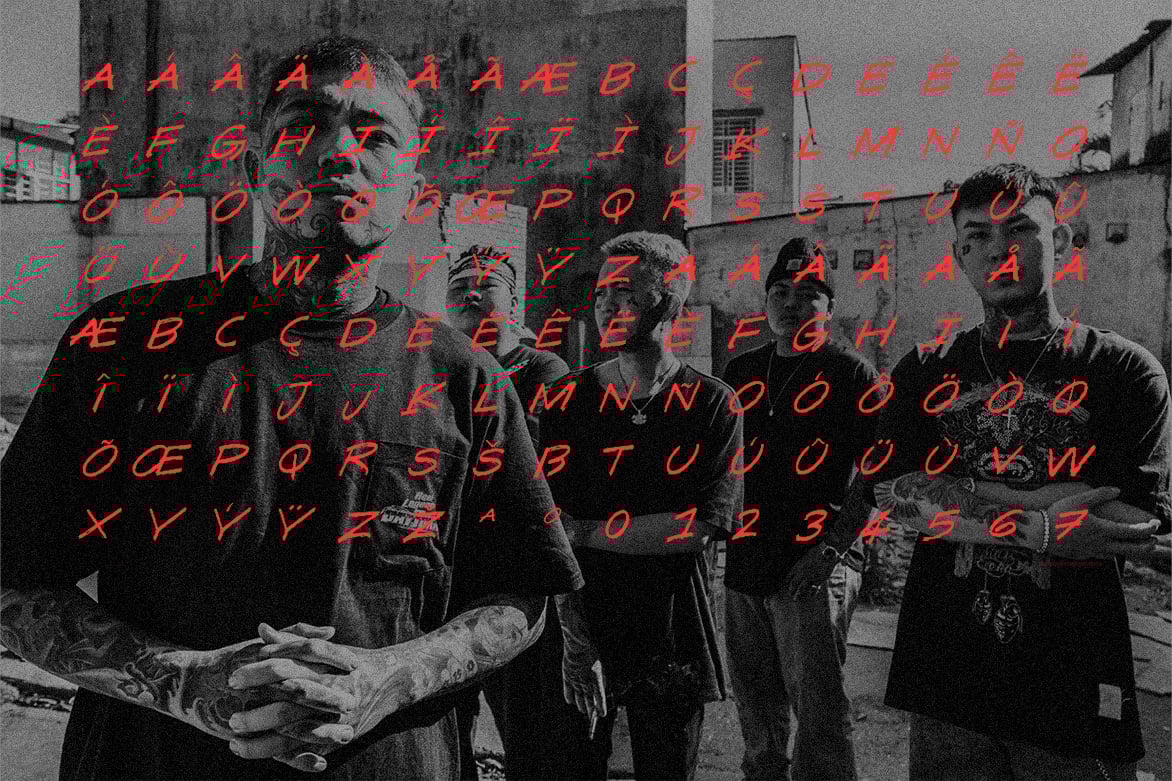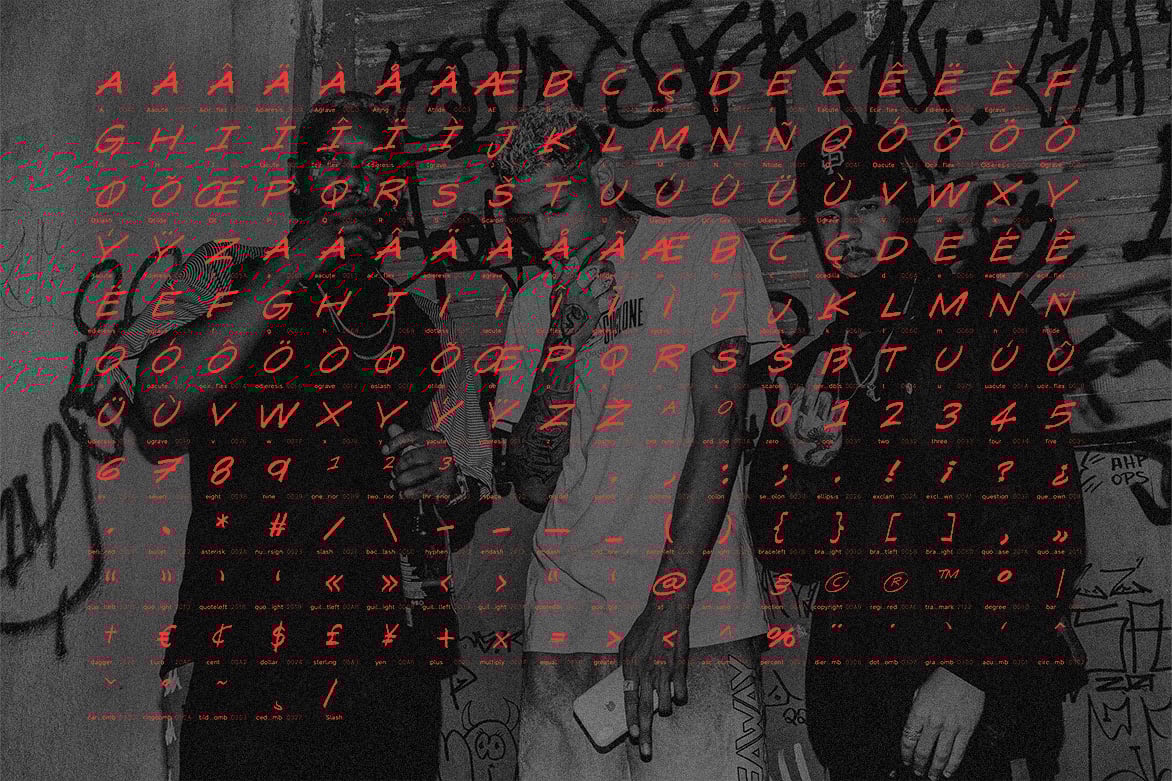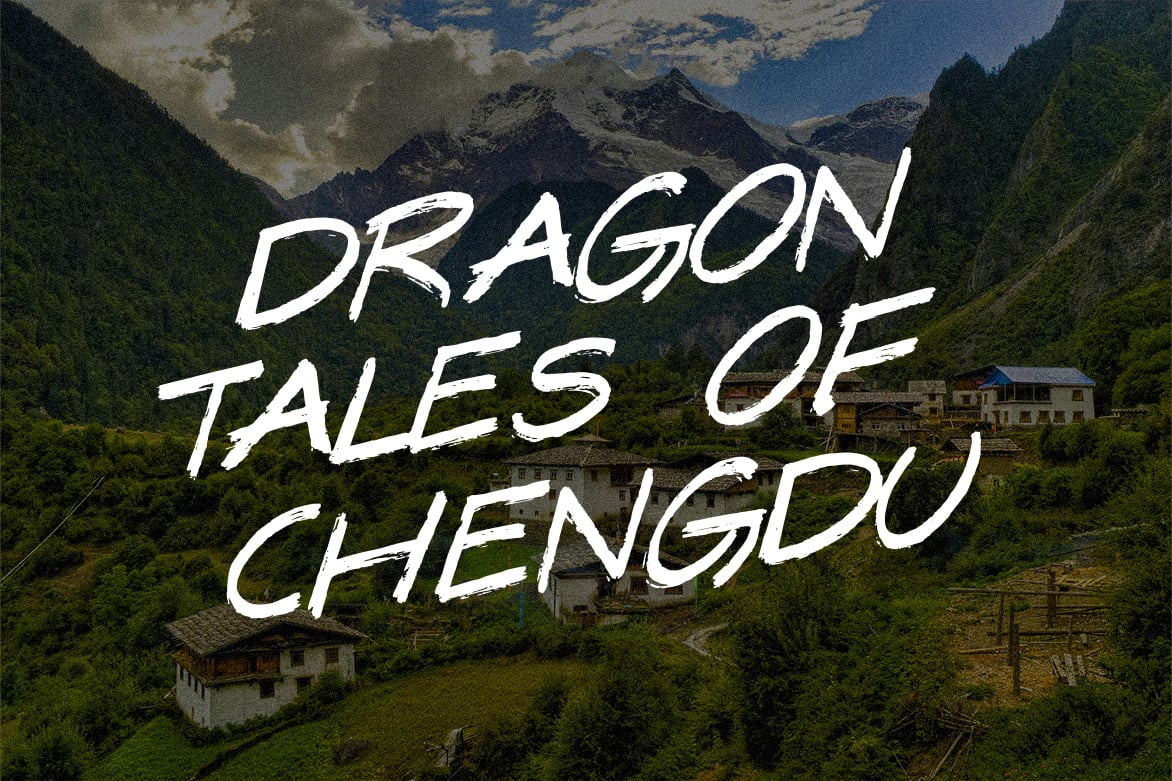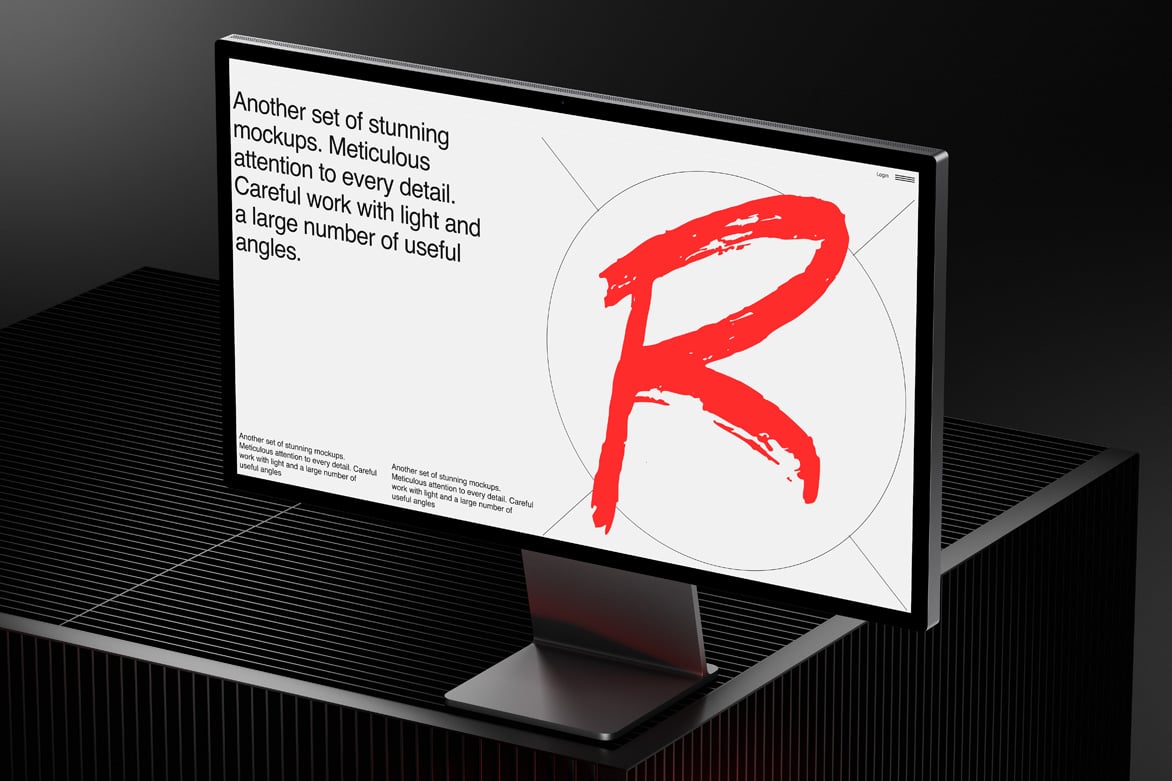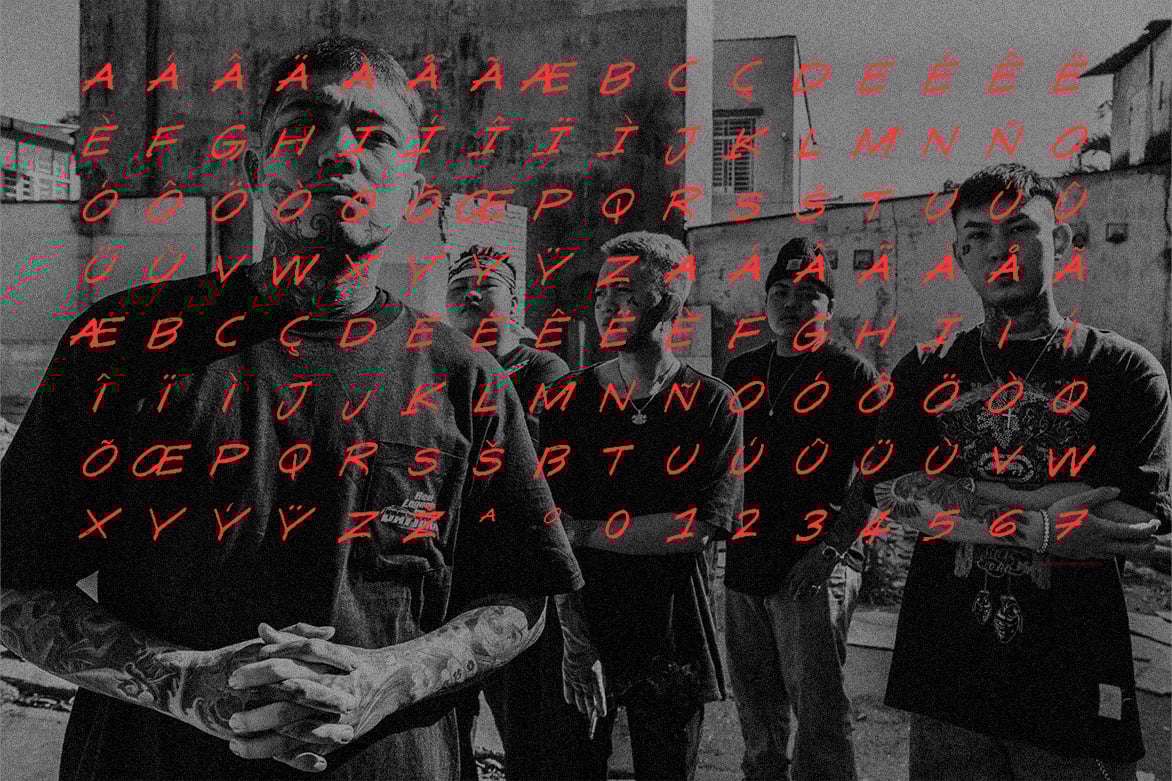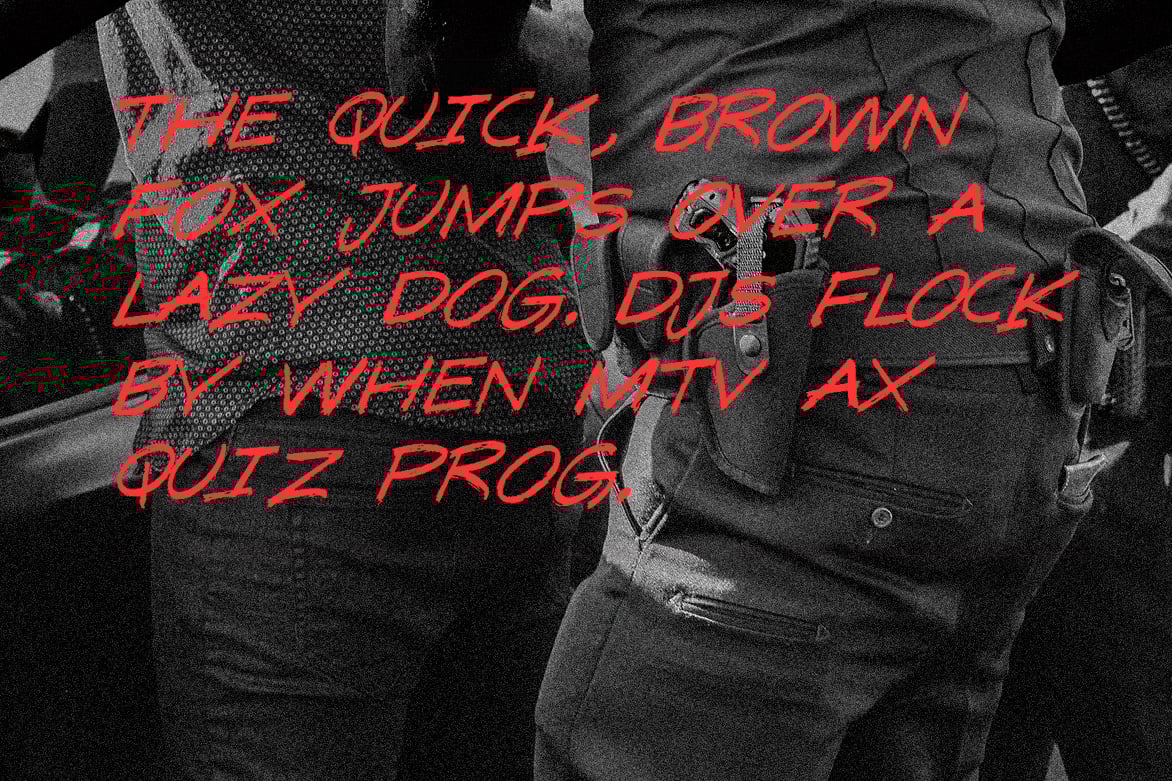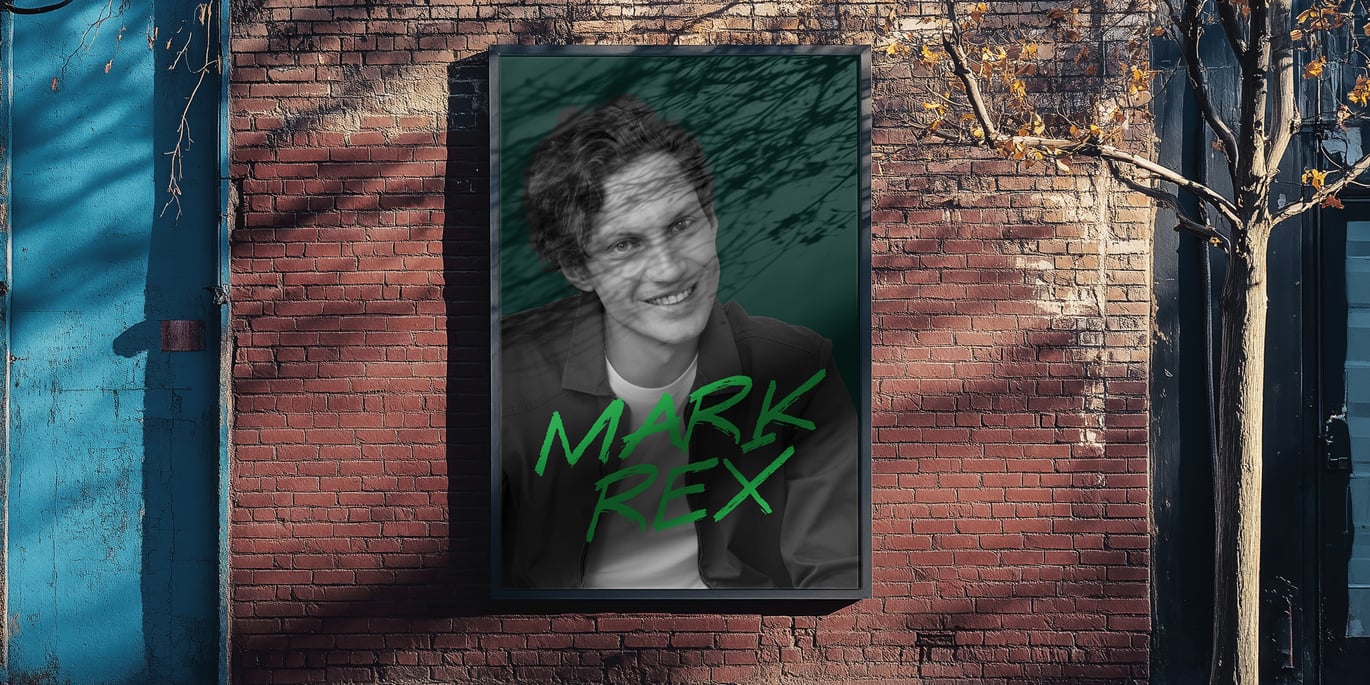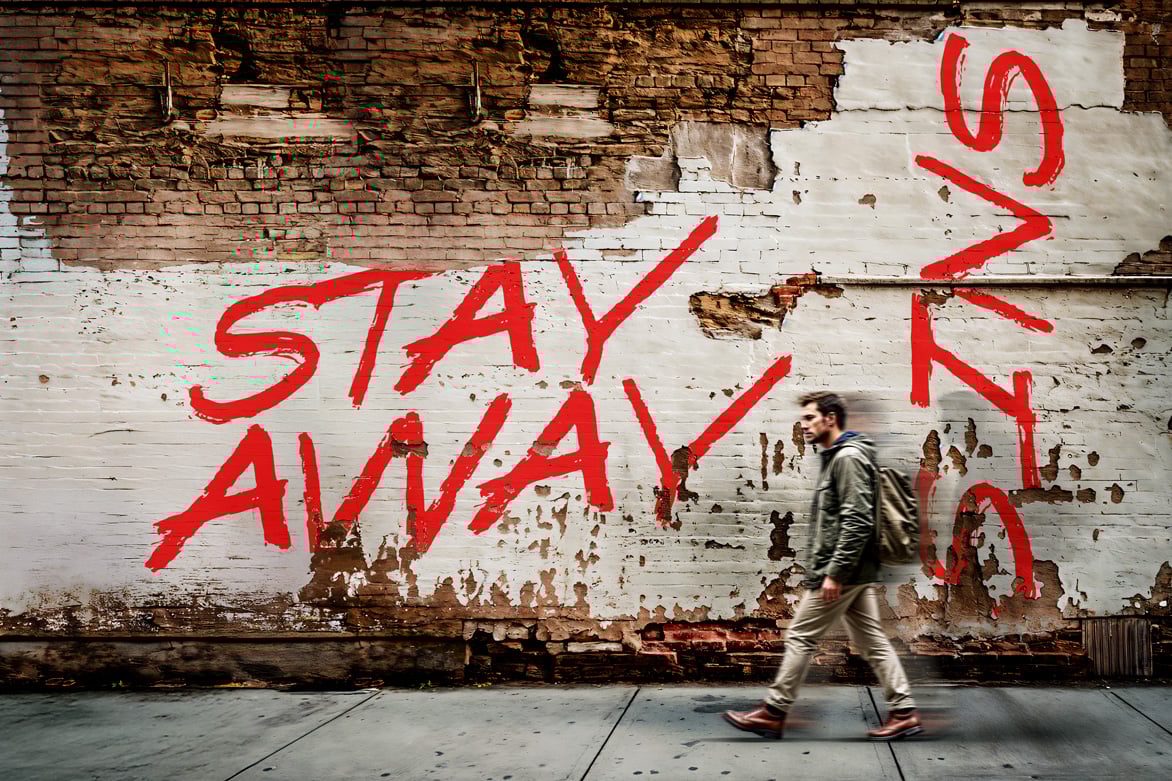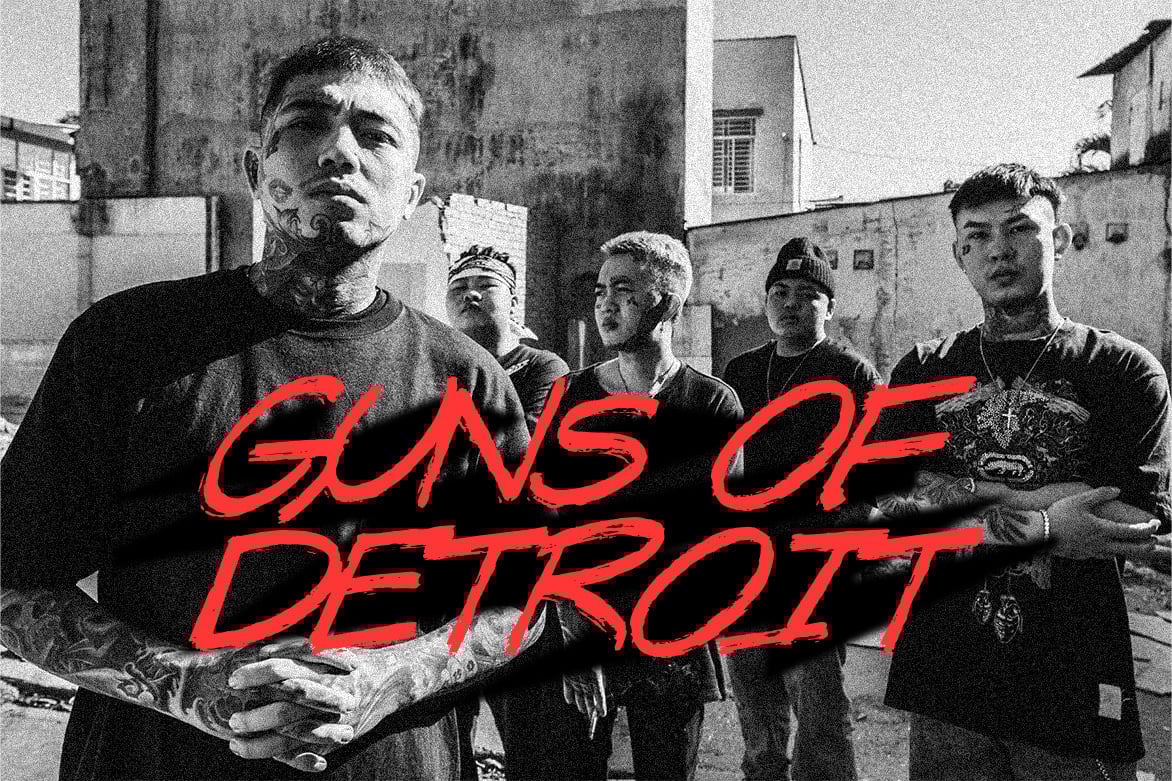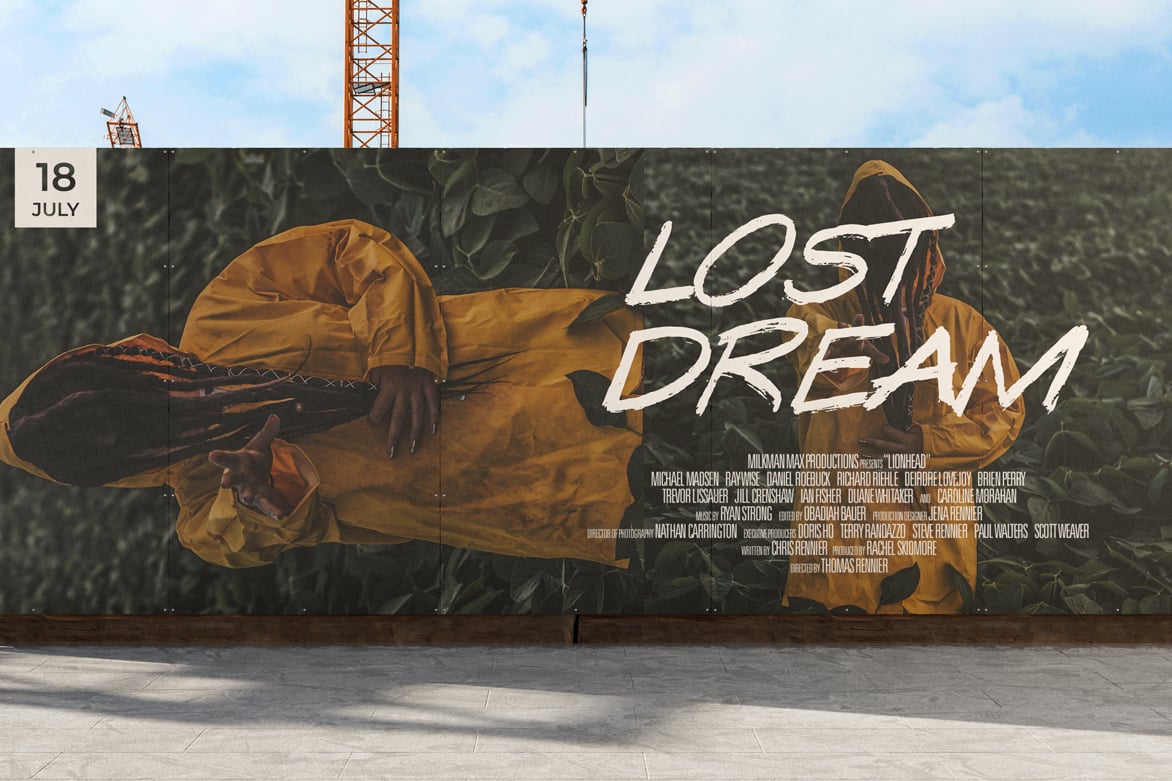
Graveyard – Handcrafted Display Font
GRAVEYARD is a bold, wild, and untamed display font crafted for those who dare to stand out. Inspired by street art, horror culture, and dark aesthetics, every letter drips with attitude and energy.
Perfect for horror movie titles, band posters, Halloween designs, game graphics, branding, and social media content that needs an aggressive edge.
With support for 100+ languages, GRAVEYARD breaks the silence across cultures — making your message loud, raw, and universal.
Highlights:
- 100% Handcrafted
- Aggressive & Edgy Look
- Perfect for Horror, Grunge & Urban Themes
- Uppercase Font
- Multilingual Support (100+ Languages)
Ideal For:
Posters | Album Covers | Branding | Social Media Graphics | Gaming Titles | Merch Designs | Event Flyers
Font Designed and Crafted by  Webhance Studio.